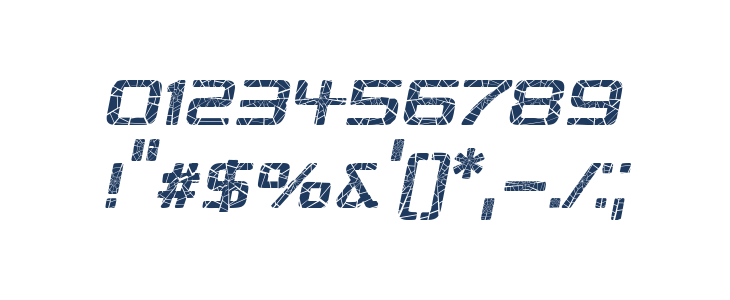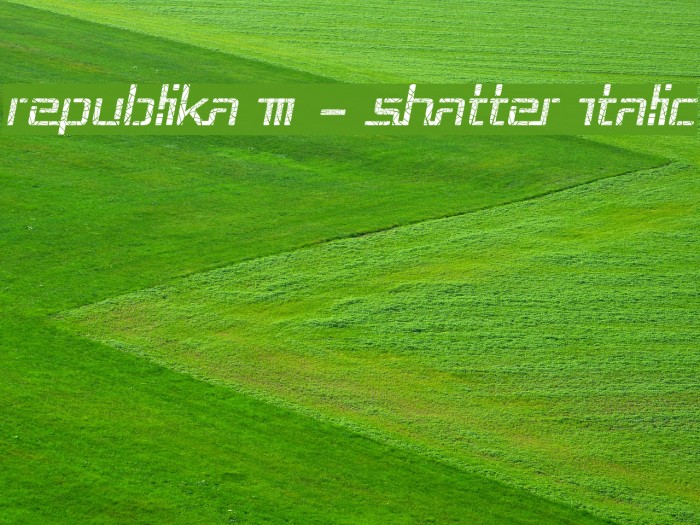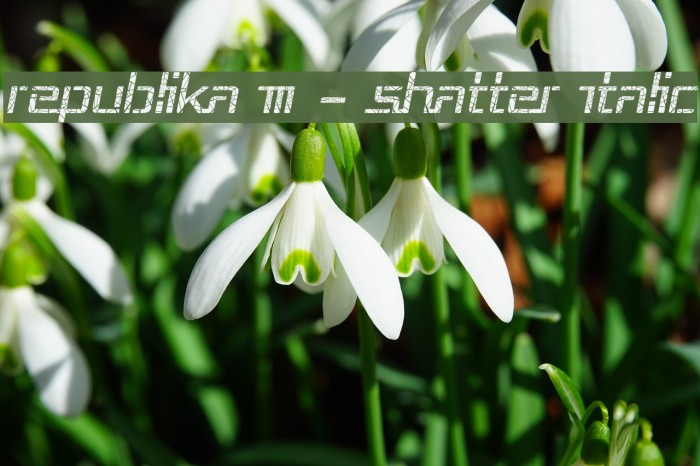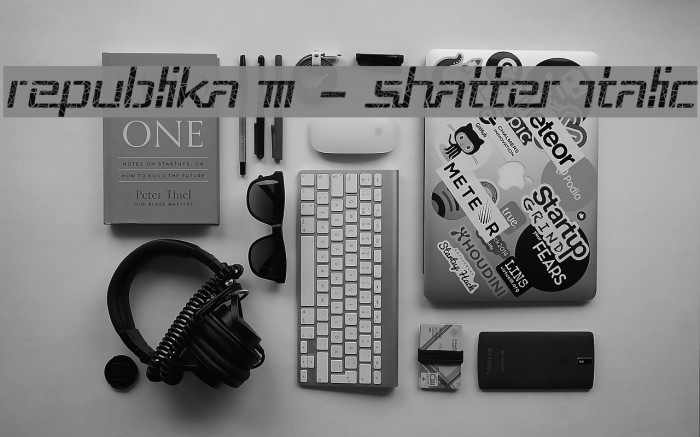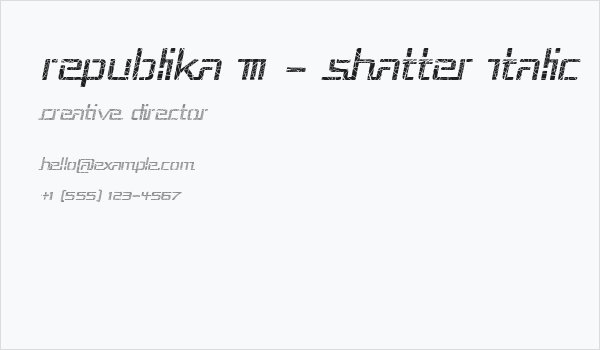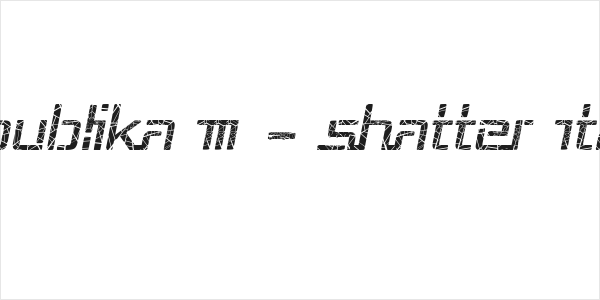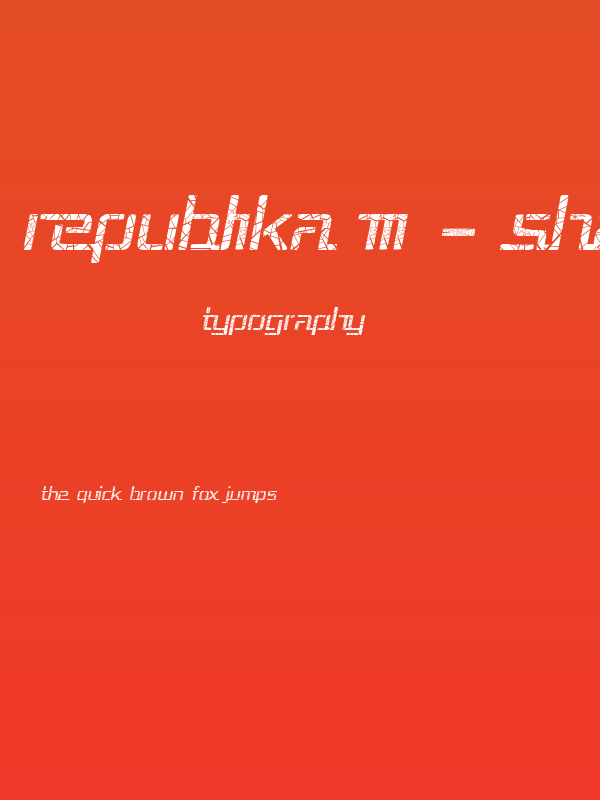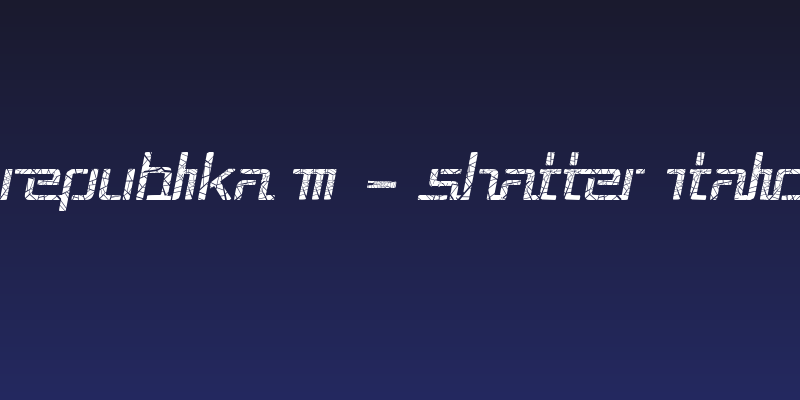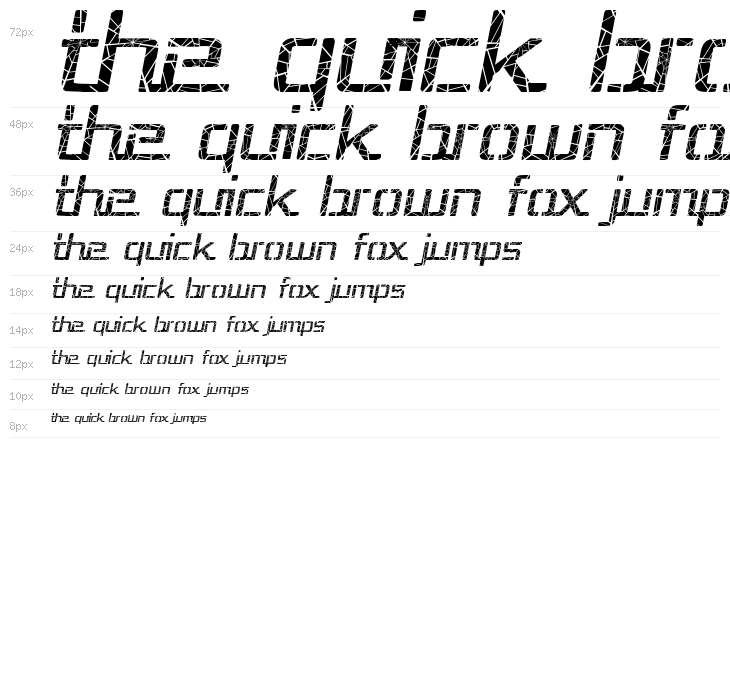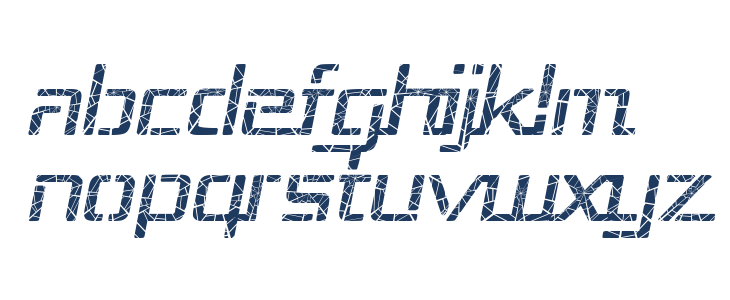
Republika III - Shatter Italic Font
Republika III - Shatter Italic Description
This font features a unique shattered effect, giving each character a fragmented and dynamic appearance. The italicized style adds a sense of motion and energy, making it stand out in any design. The geometric fragmentation within each letterform creates a modern and edgy aesthetic, perfect for projects that require a bold statement. The uppercase and lowercase letters maintain a consistent shattered pattern, while the numerals and special characters follow suit, ensuring uniformity across all text. This font is ideal for creative and contemporary designs, where a distinctive and eye-catching typeface is needed.
| Proposed Projects | Ideal for album covers, posters, branding projects, and any design requiring a bold, modern statement. |